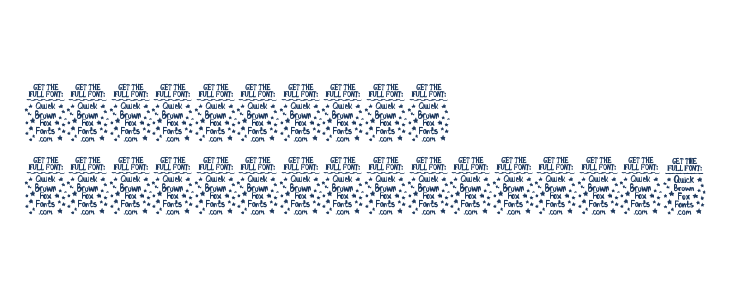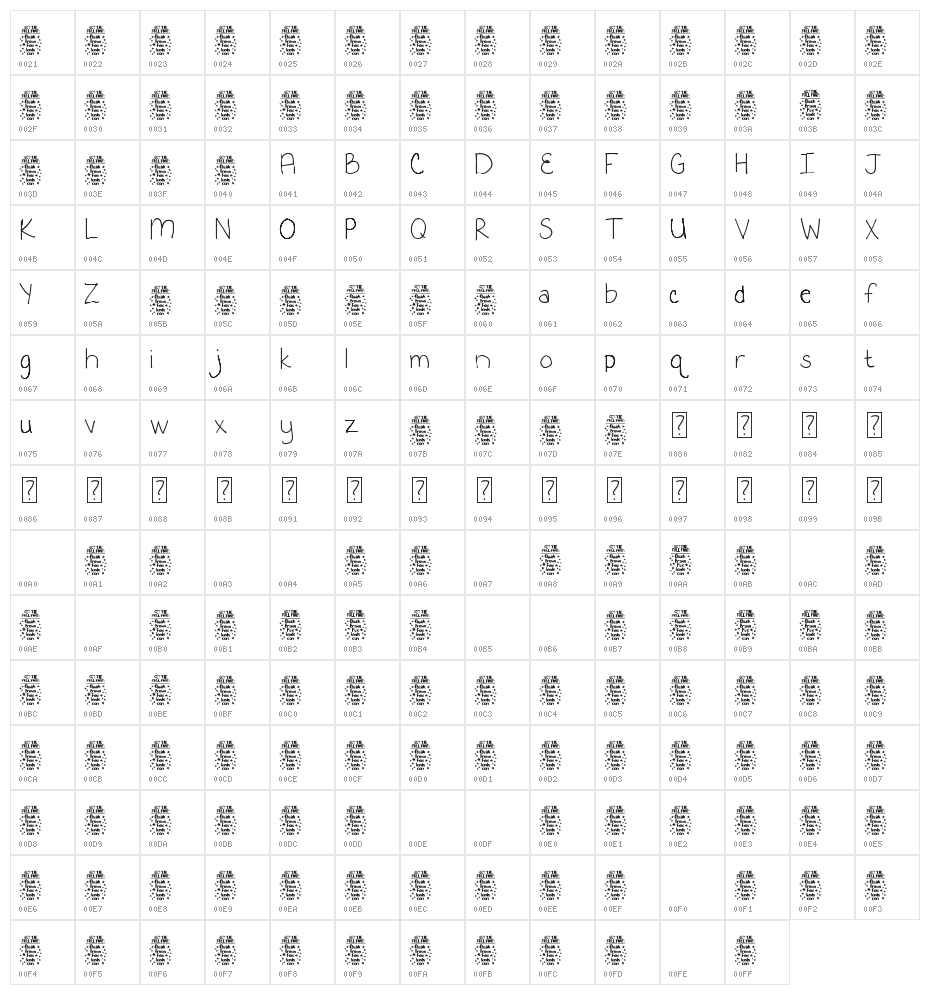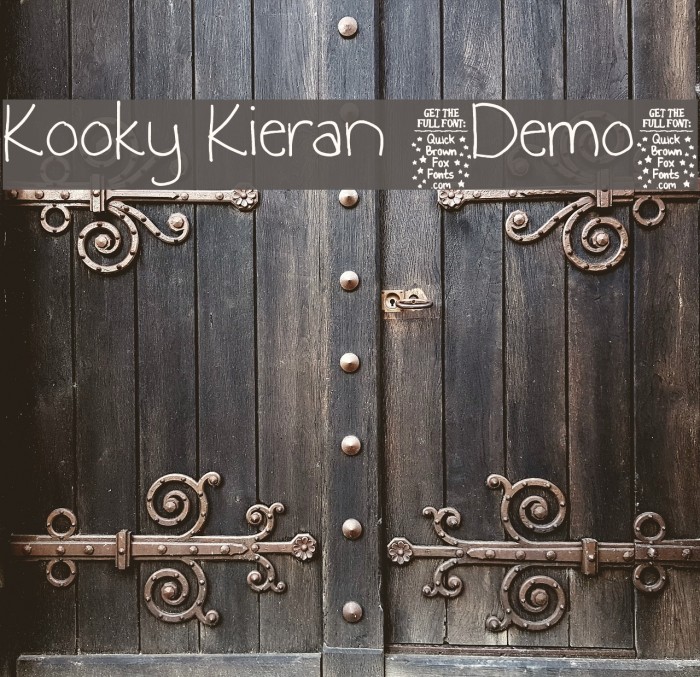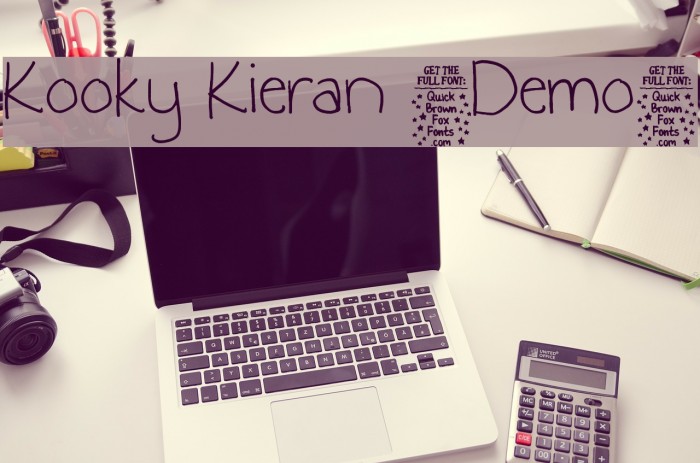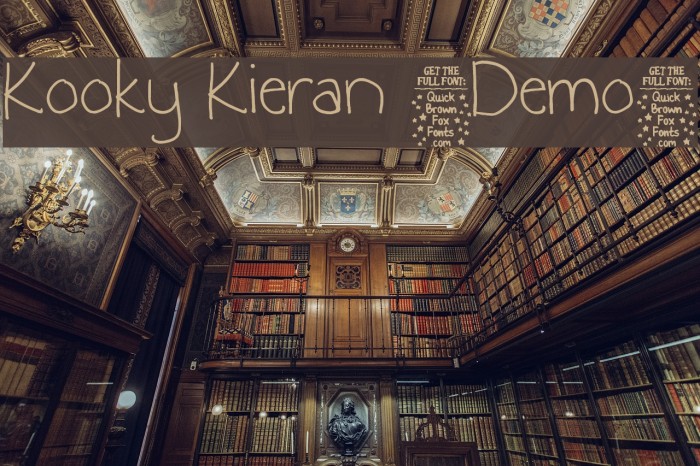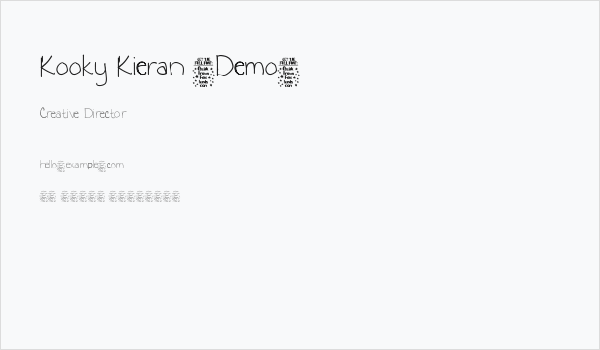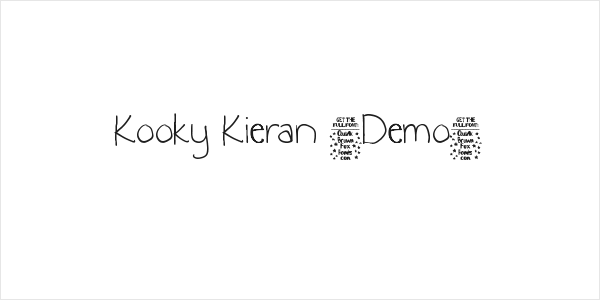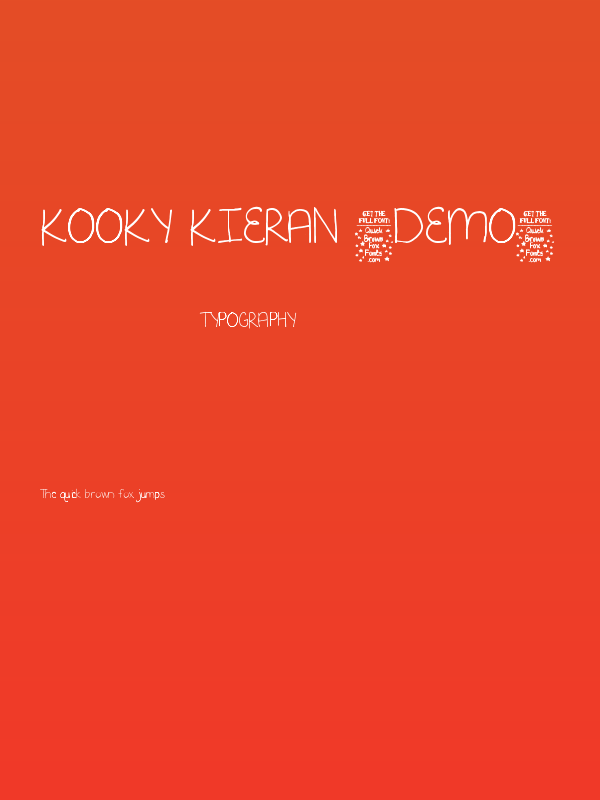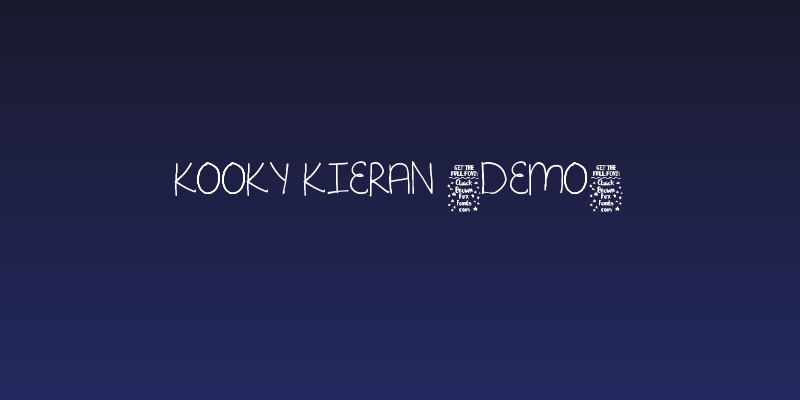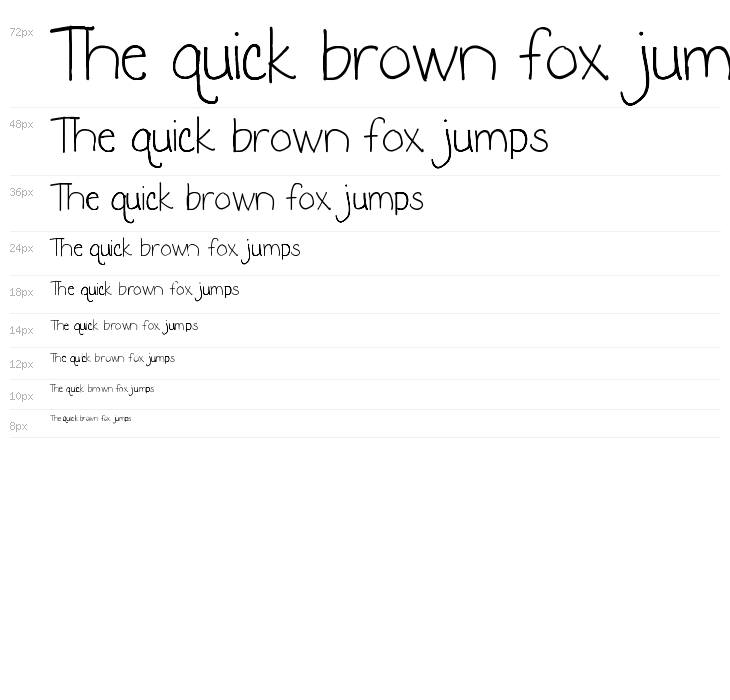
Kooky Kieran [Demo] Font
Kooky Kieran [Demo] Description
This playful and whimsical font features a handwritten style with irregular, slightly wavy lines that give it a casual and friendly appearance. The characters are tall and narrow, with a consistent stroke width that maintains readability. The uppercase letters are slightly larger than the lowercase, adding to its informal charm. The font includes a full set of uppercase and lowercase letters, numbers, and a selection of special characters. Its unique style makes it ideal for projects that require a personal touch or a fun, lighthearted vibe.
| Proposed Projects | Ideal for greeting cards, children's books, playful branding, and casual invitations. |